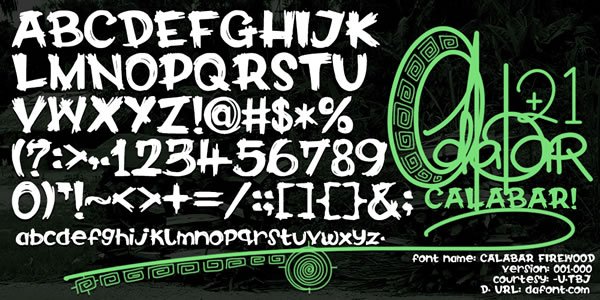
Igniting Creativity with Calabar Firewood Font
As designers, we’ve all been there – staring at a blank canvas, trying to spark that elusive creative spark. And then, it happens. A font catches our eye, and suddenly, the ideas start flowing. For me, it was the Calabar Firewood Font. Its unique, rustic charm has a way of transporting me to a world of endless possibilities.
Calabar Firewood Font is more than just a pretty face; it’s a versatile tool that can elevate any design project. Whether you’re creating a logo, designing a mug, or crafting a headline, this font is sure to bring warmth and character to your work. Its value lies in its ability to add a touch of personality to even the most mundane designs, making it a must-have for any designer looking to take their work to the next level.
With Calabar Firewood Font, the possibilities are endless, and the results are always exciting. Whether you’re a seasoned pro or just starting out, this font is sure to ignite your creativity and inspire your next design project.
Calabar Firewood Font Key Features
- Unique Characteristics: Calabar Firewood Font features a distressed, vintage aesthetic with a unique blend of rustic and modern elements, perfect for creating eye-catching designs.
- Font Styles: The font family includes multiple styles, including Regular, Bold, Italic, and Bold Italic, offering flexibility for various design needs.
Designer Review: Calabar Firewood Font
At first glance, Calabar Firewood Font seems like a quirky, offbeat choice. ✨ The designer’s use of distressed textures and a worn, vintage aesthetic does evoke a sense of nostalgia and timelessness. However, as I dove deeper into the font, I found both the positives and negatives to be quite striking.
- ✨ Unique texture and distressed effects create a one-of-a-kind look.
- ✨ Great for projects requiring a vintage or retro feel.
- ✨ Supports a wide range of languages.
- ⚠️ Limited font sizes may lose some of the distressed texture.
- ⚠️ Some characters may appear inconsistent or unevenly distressed.
- ⚠️ May not be the best choice for projects requiring high-level readability.
Overall, I’d say Calabar Firewood Font is a bold choice for designers looking to add some personality to their projects. While it excels at creating a unique, retro aesthetic, it may not be the best fit for every project. As with any font, it’s essential to consider the specific needs of your design and whether this font can deliver on those requirements.
Getting the Most Out of the Font
For the best results, use the Calabar Firewood font in conjunction with a warm and earthy color scheme. The font’s rustic, hand-carved aesthetic pairs well with natural textures and patterns.
The Calabar Firewood font is ideal for use in rustic, outdoorsy, or vintage-themed designs. It’s perfect for branding and marketing materials, such as logos, business cards, and brochures, as well as for creating invitations, menus, and other print materials.